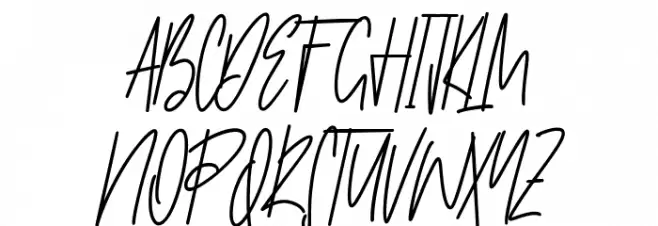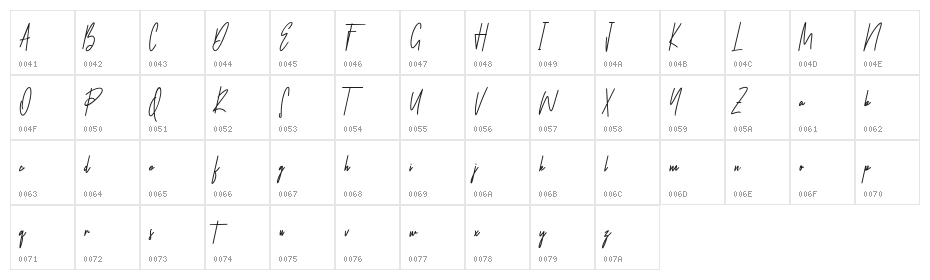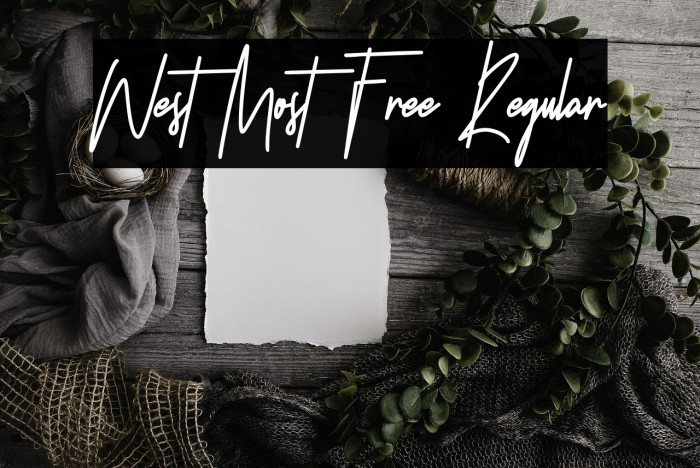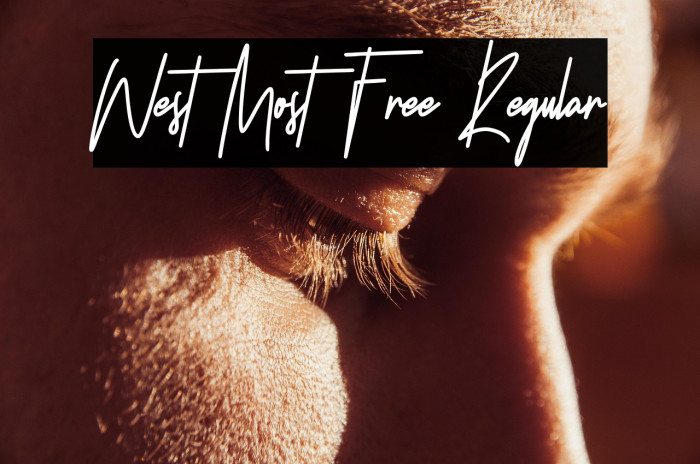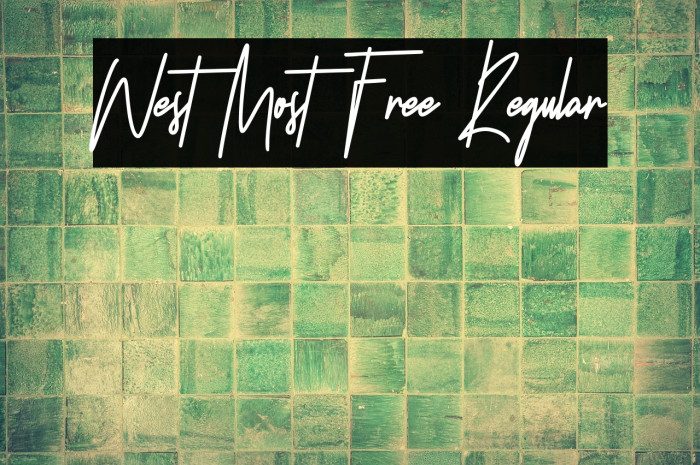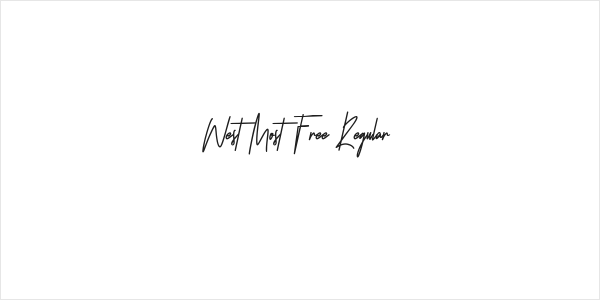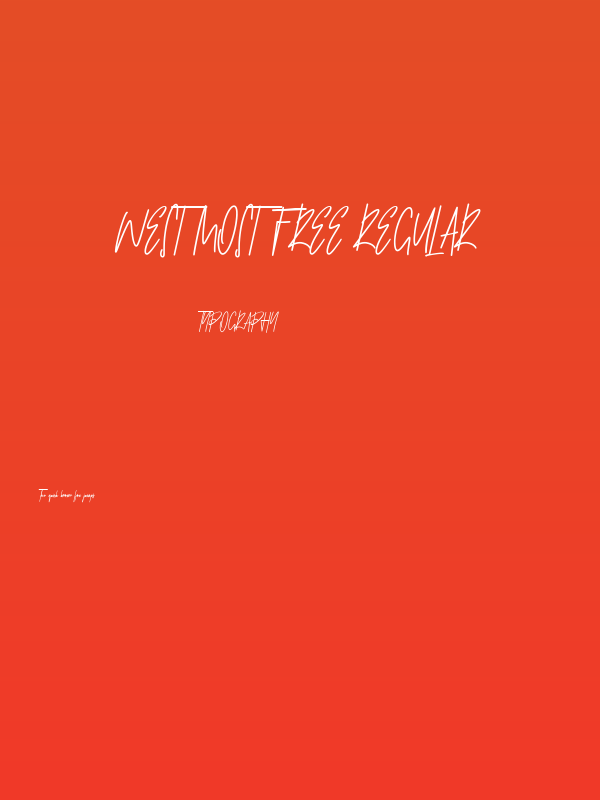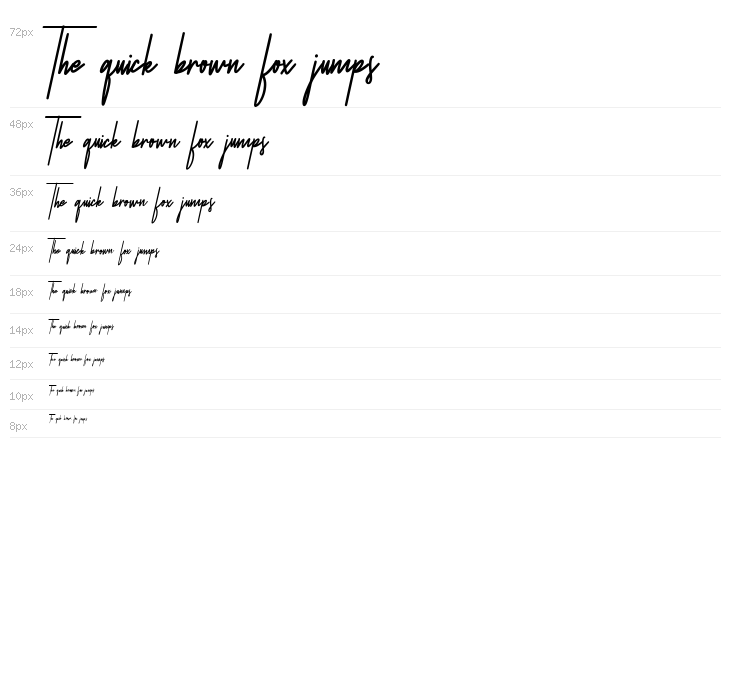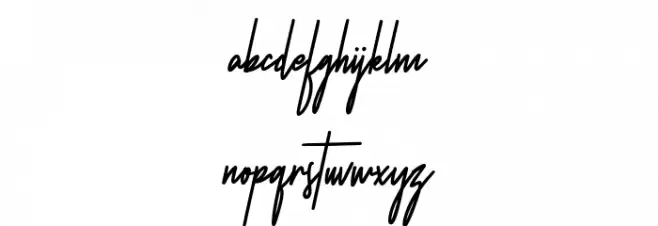
West Most Free Regular Font
West Most Free Regular Description
A handwritten, decorative font with a casual and artistic style, featuring elongated and flowing letterforms.
| Overall Style | Decorative |
| Use Case | Logos, Headlines |
| Proposed Projects | Greeting cards, invitations, artistic posters. |